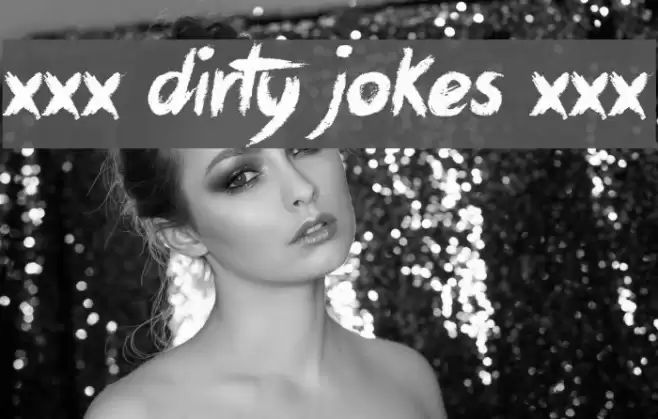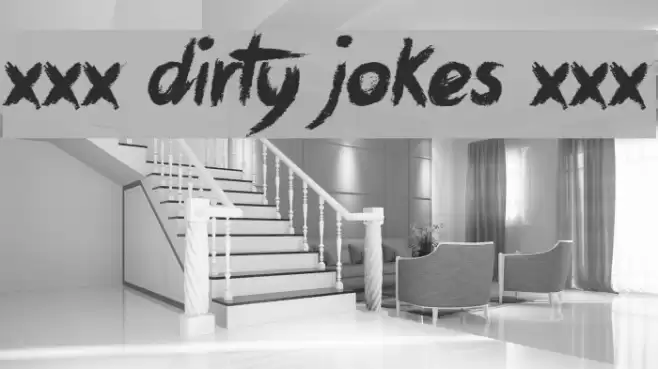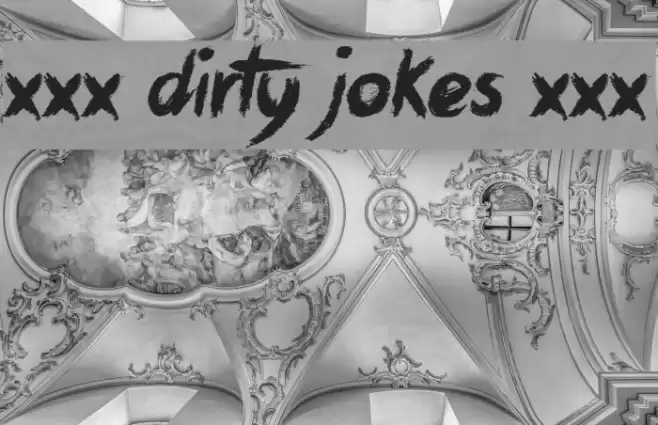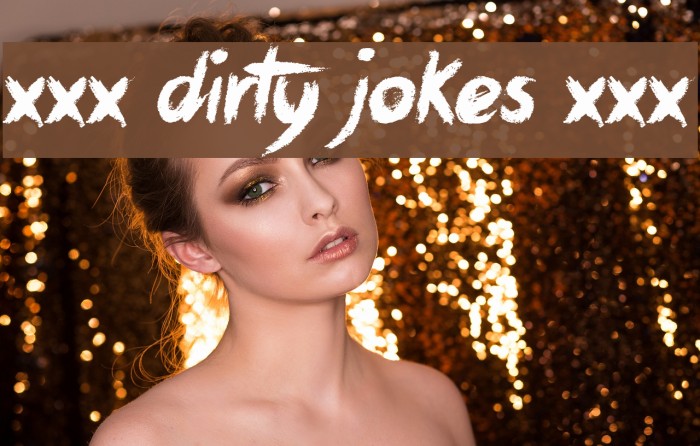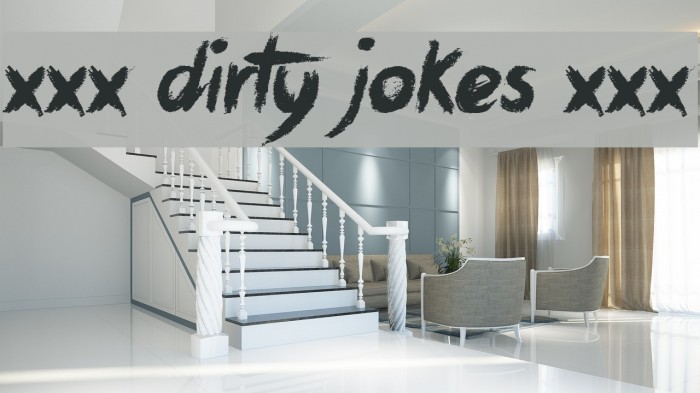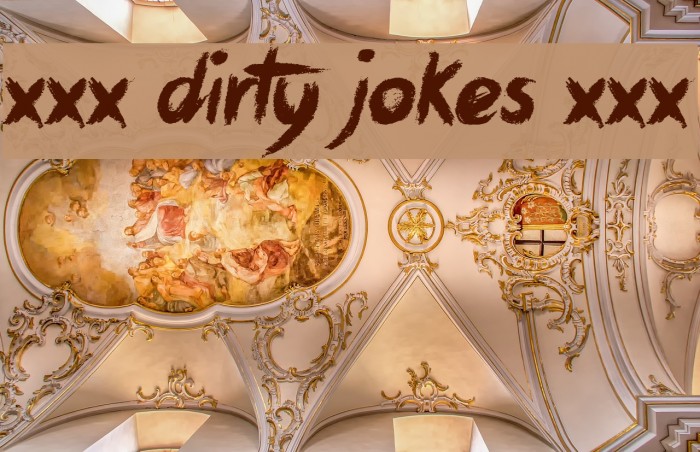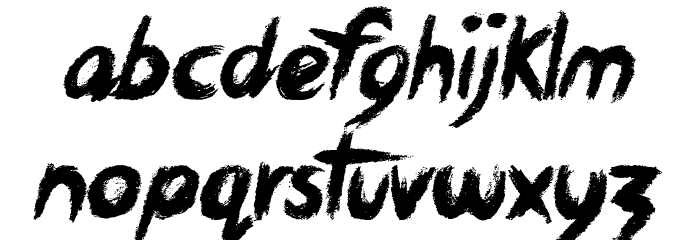
xxx Dirty Jokes xxx Font
xxx Dirty Jokes xxx Description
This font features a bold, expressive brush style that exudes energy and dynamism. The letters are crafted with a rough, textured appearance, giving them a hand-painted look. The uppercase and lowercase characters maintain a consistent style, with exaggerated curves and sharp angles that add a sense of movement. The numerals are sleek and modern, contrasting with the more rugged letterforms. Special characters are included, maintaining the same bold and artistic flair. This font is ideal for projects that require a strong visual impact and a touch of artistic flair.
A bold, expressive brush-style font with a textured, hand-painted look from Uncategorized fonts.
- Proposed Projects: Perfect for posters, album covers, branding projects, and any design that needs a dynamic and artistic touch.
- Overall Style: Modern, Artistic